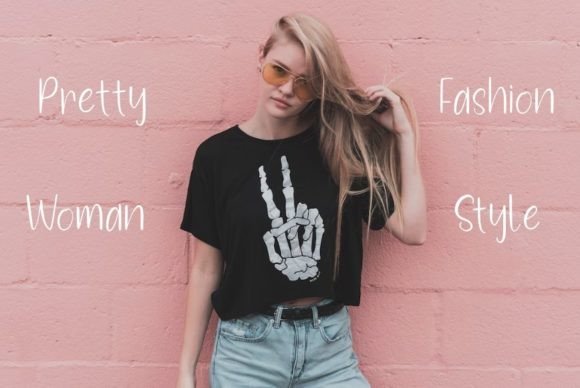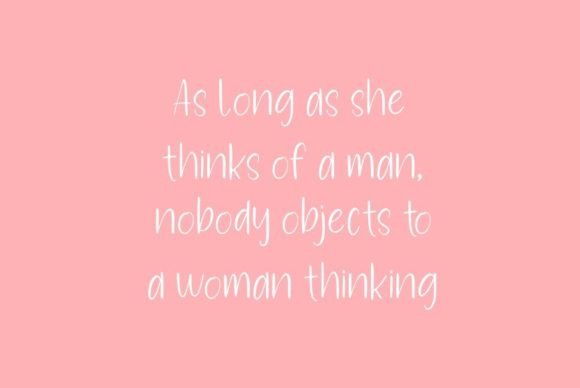
Bring a fresh and bold vibe to your creative work with the Feminism font. This playful and quirky display font is designed to brighten up your designs and make a statement. It is ideal for feminism-themed projects, especially when paired with bright and vibrant colors.
The Feminism font features unique, eye-catching letterforms that add personality and energy to any design. Its unconventional style makes your work stand out, perfect for posters, social media graphics, branding, and more. This font celebrates creativity and boldness.
Use the Feminism font to create striking headlines, empowering messages, and dynamic visuals. Whether you’re designing for campaigns, events, merchandise, or digital content, this font adds a lively and engaging touch.
Despite its playful and quirky design, the Feminism font maintains good readability. It works well in both large display settings and smaller accents, ensuring your message is clear and impactful.
Using this font will give your projects a unique and powerful look. If you want to add a vibrant, playful edge to your feminism-themed designs, the Feminismfont is an excellent choice.
In summary, the Feminismfont is a playful and quirky display font perfect for bold and bright feminism-themed projects. Download it today and make your designs truly stand out with Feminism.